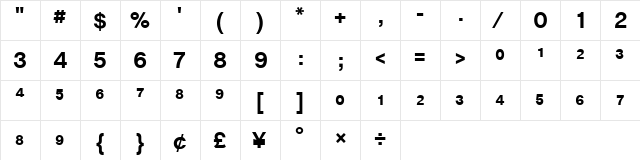
ChaletBookTTFrac Bold
Bold · House Industries/Brand Design Co. Inc, House Industries ·
Foundry House Industries/Brand Design Co. Inc,
FoundryHouse Industries/Brand Design Co. Inc,
DesignerHouse Industries
Design Context for ChaletBookTTFrac Typeface
ChaletBookTTFrac offers clean, dependable letterforms without strong stylistic allegiance, making it a practical choice for designers who need flexibility. The heavy weight commands attention and anchors typographic hierarchies.